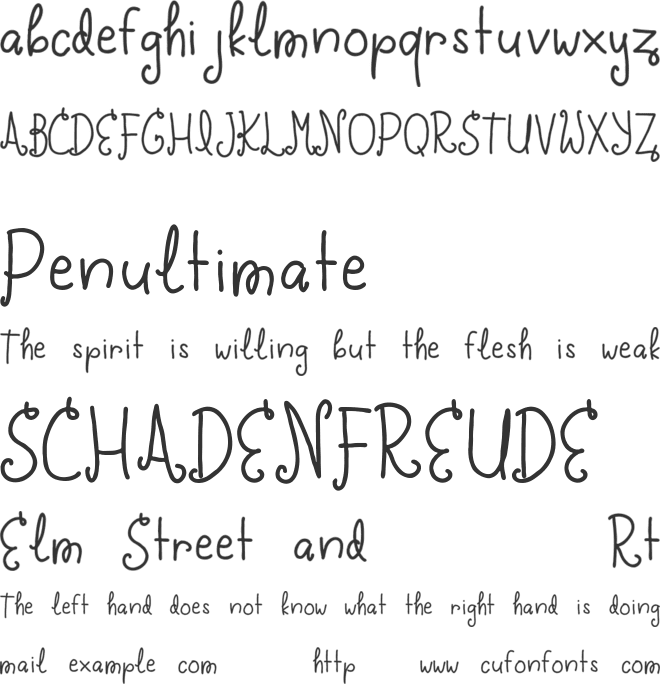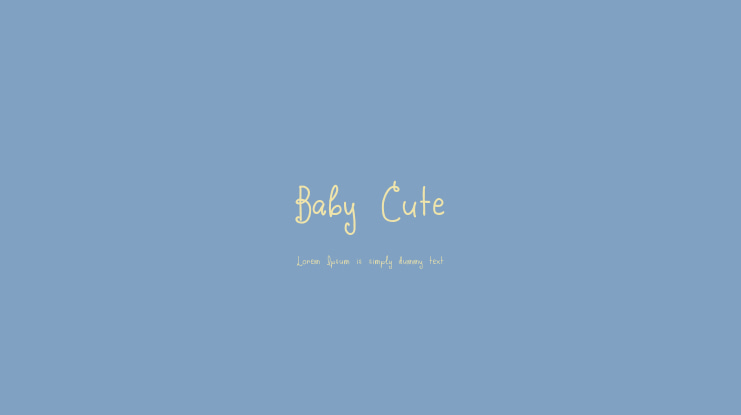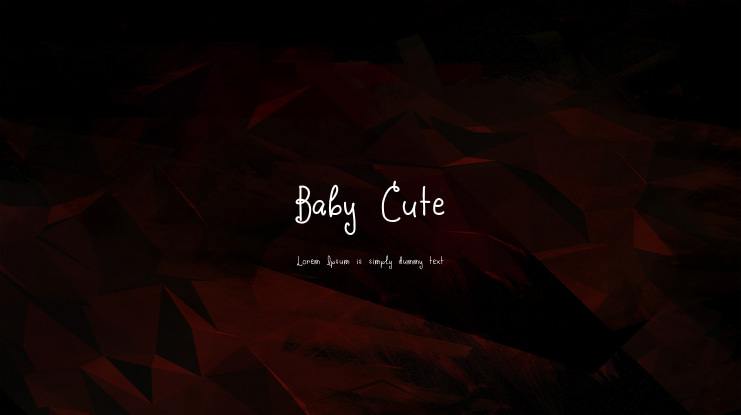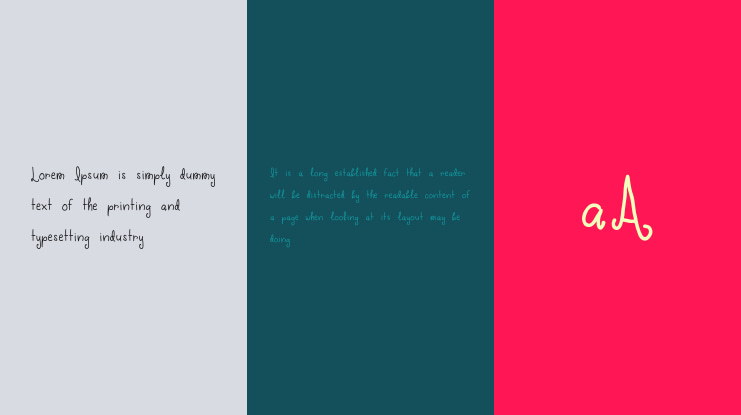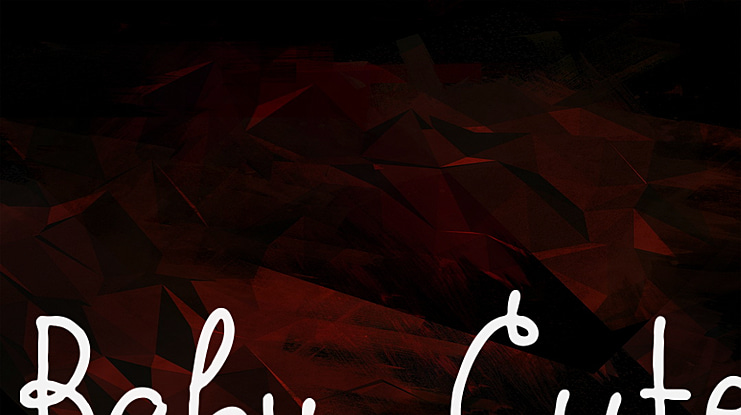
Baby Cute Font
Baby Cute is a lovely and timeless handwritten font. It is the best choice for creating eye catching logos, branding and quotes. Every letter has a unique and beautiful touch, which will make your design come alive!